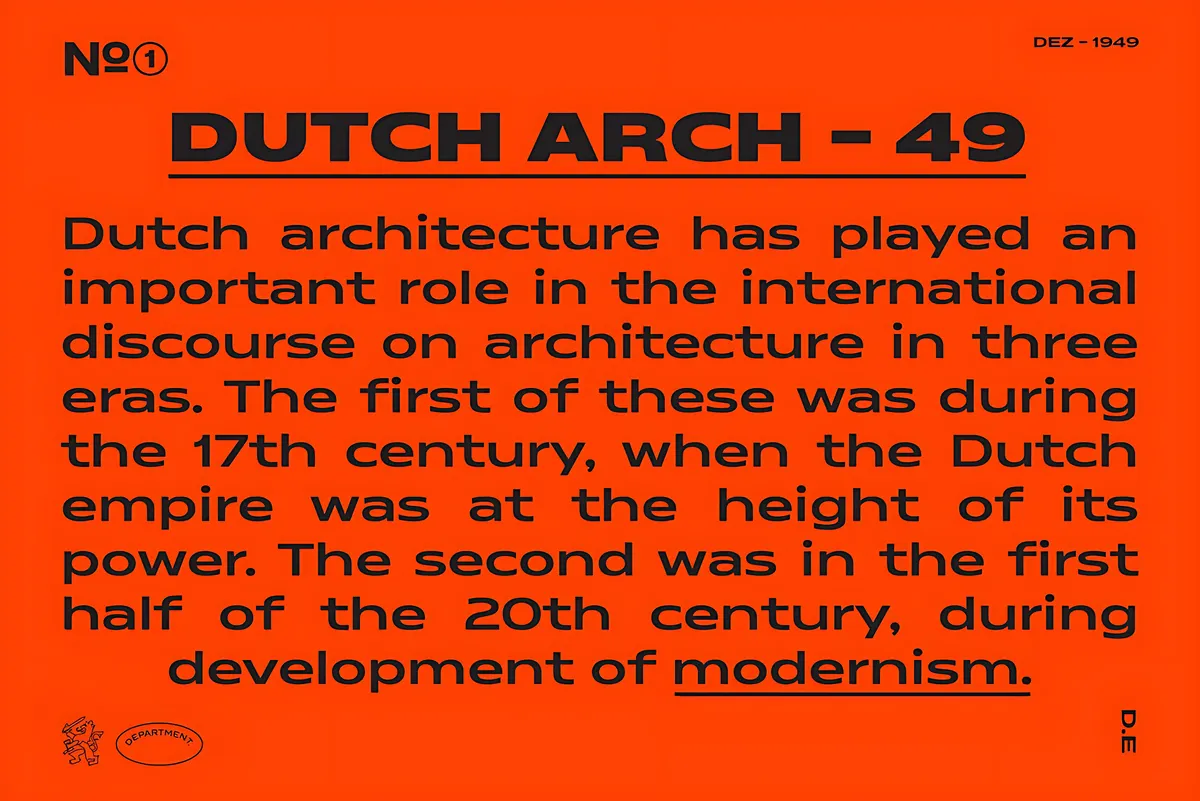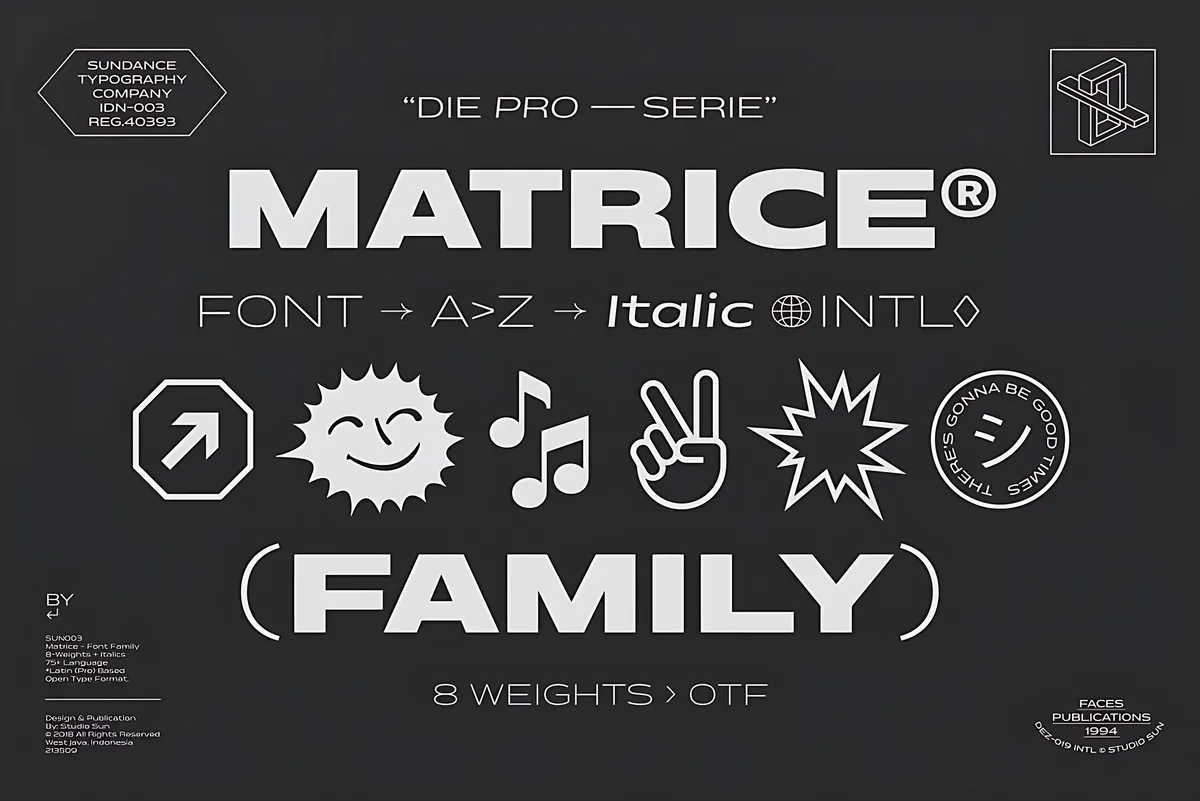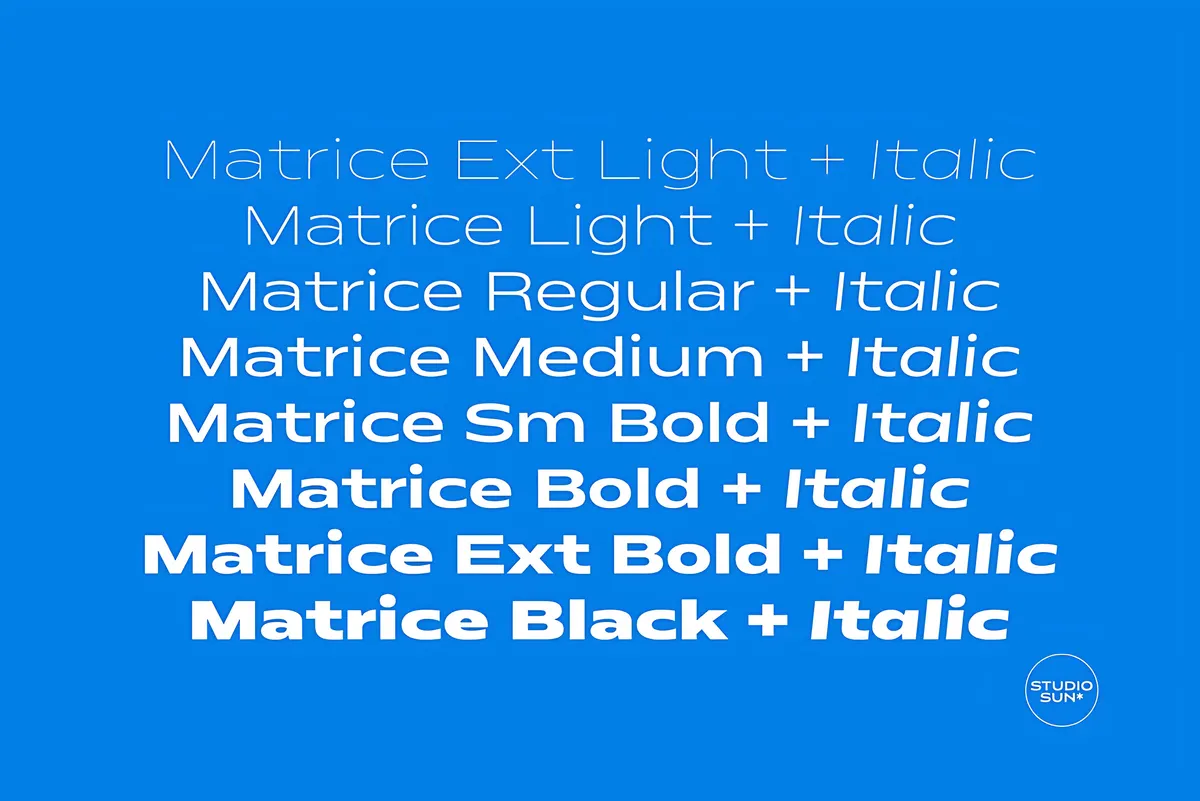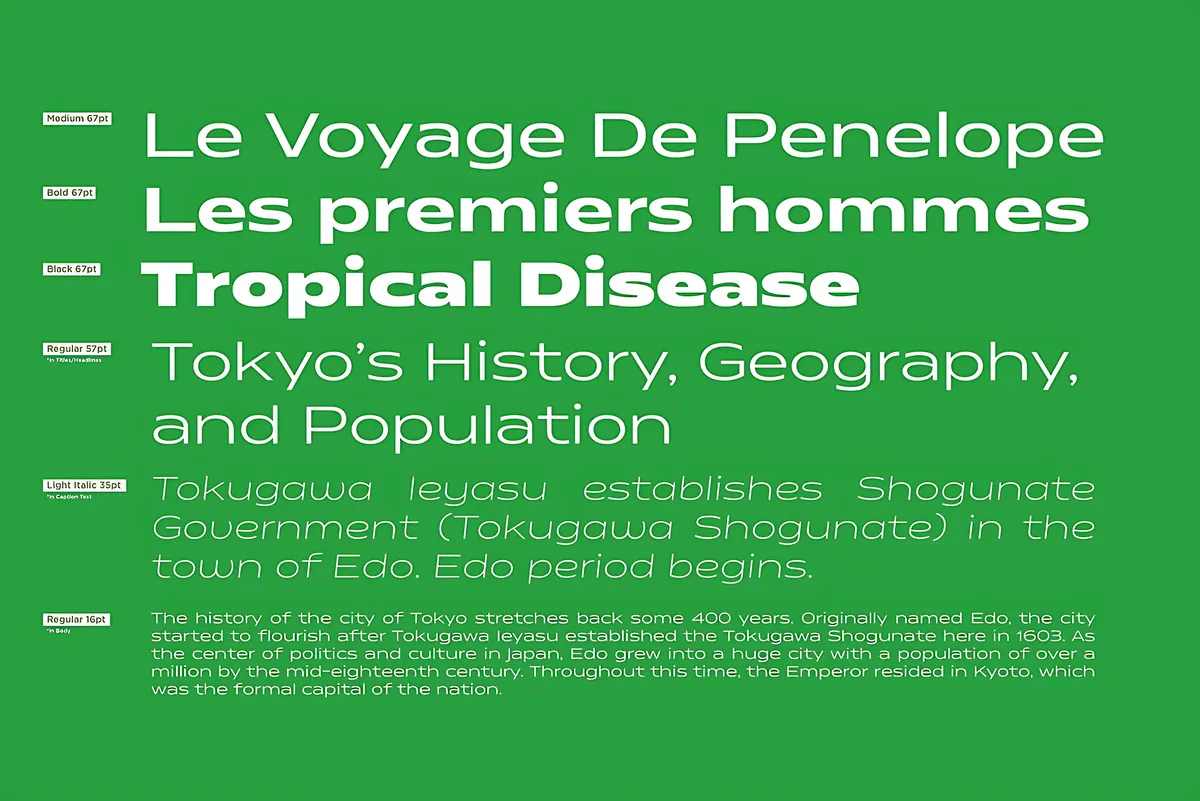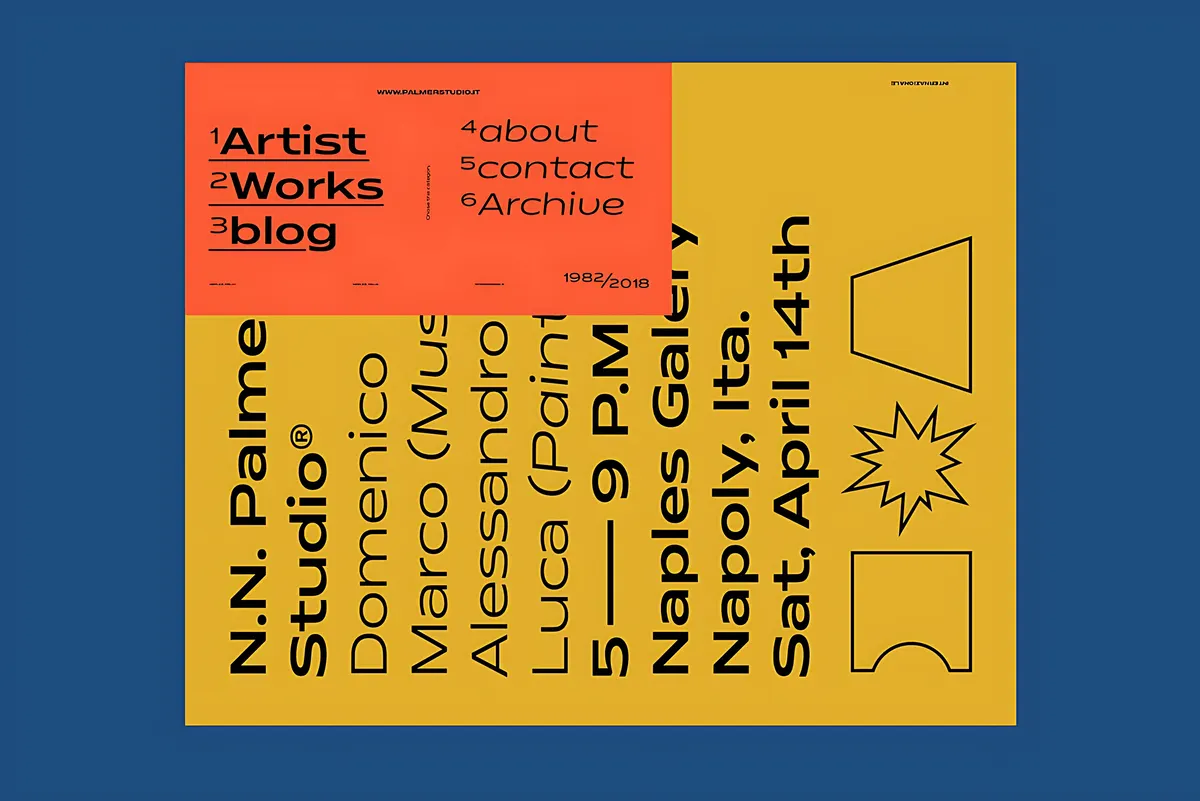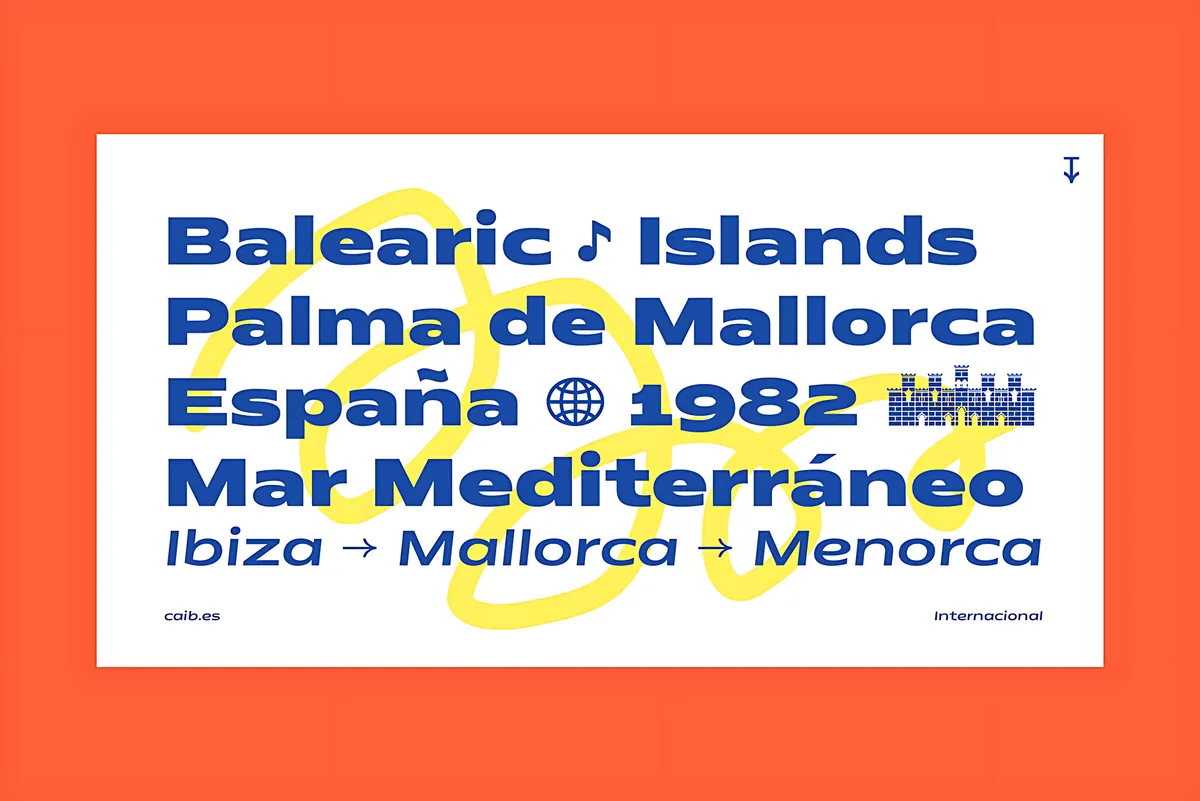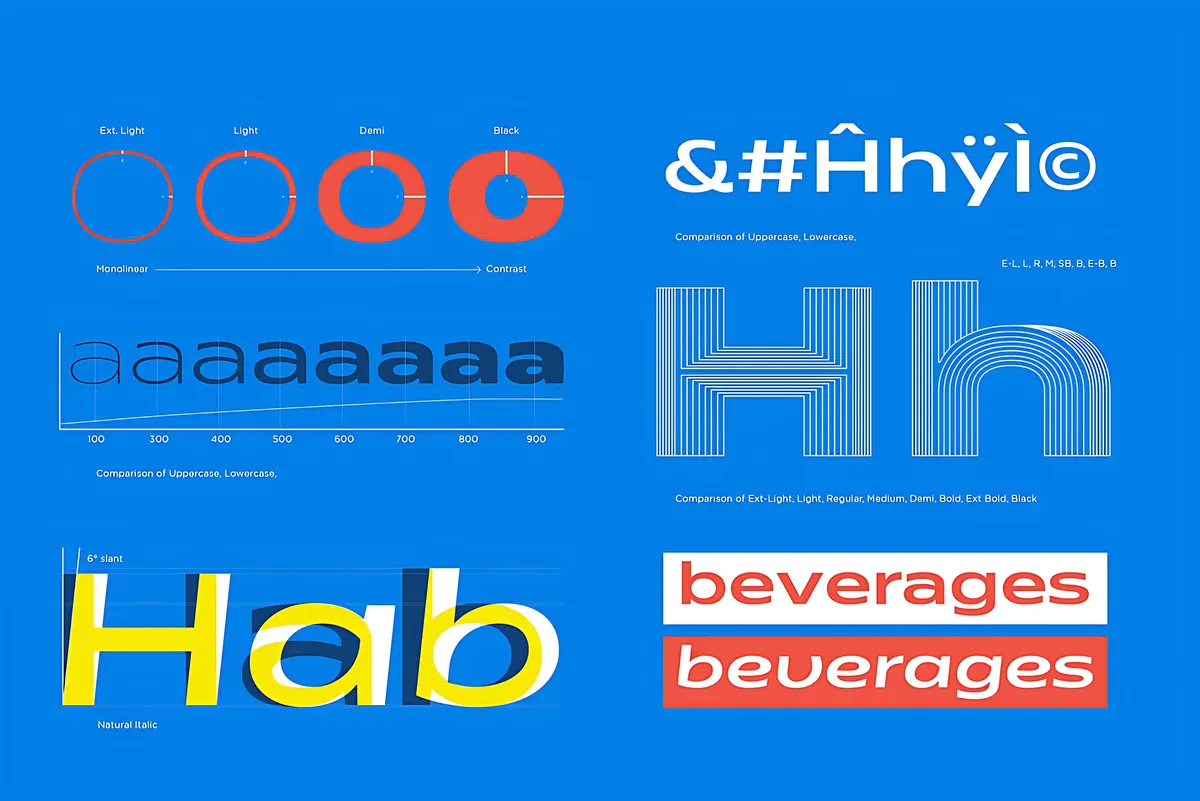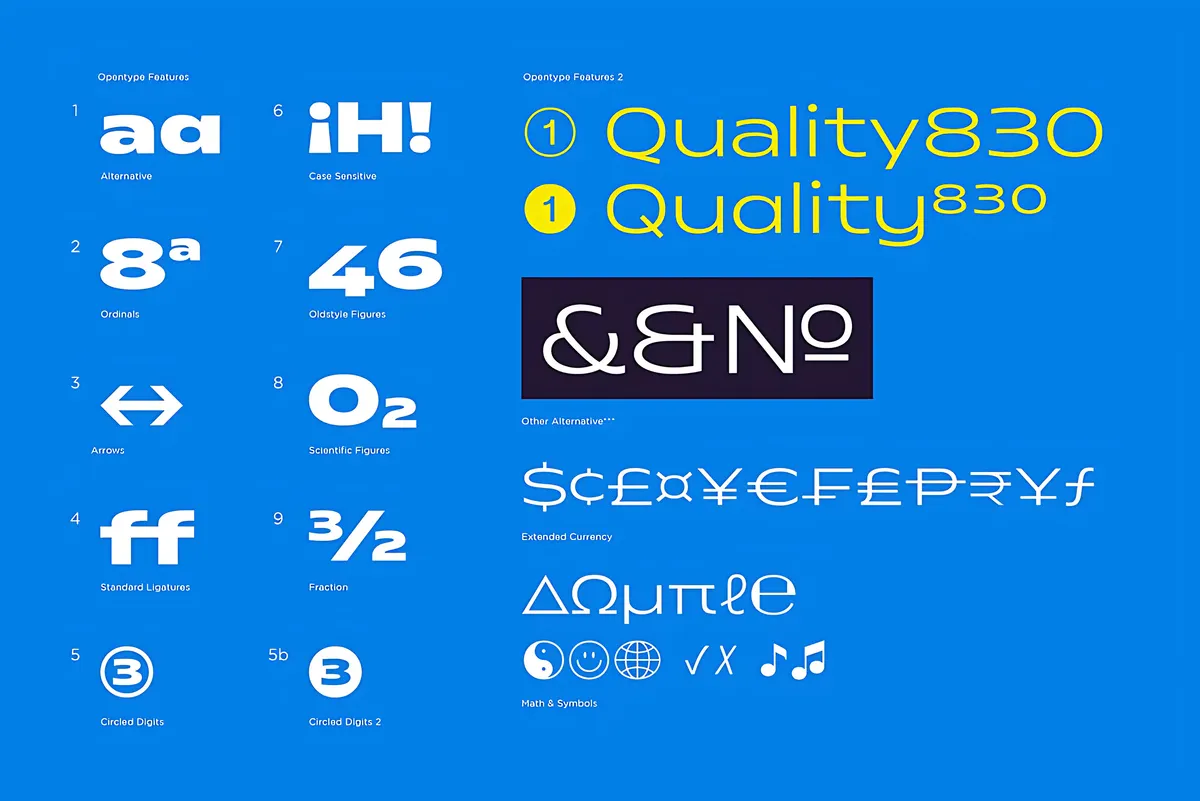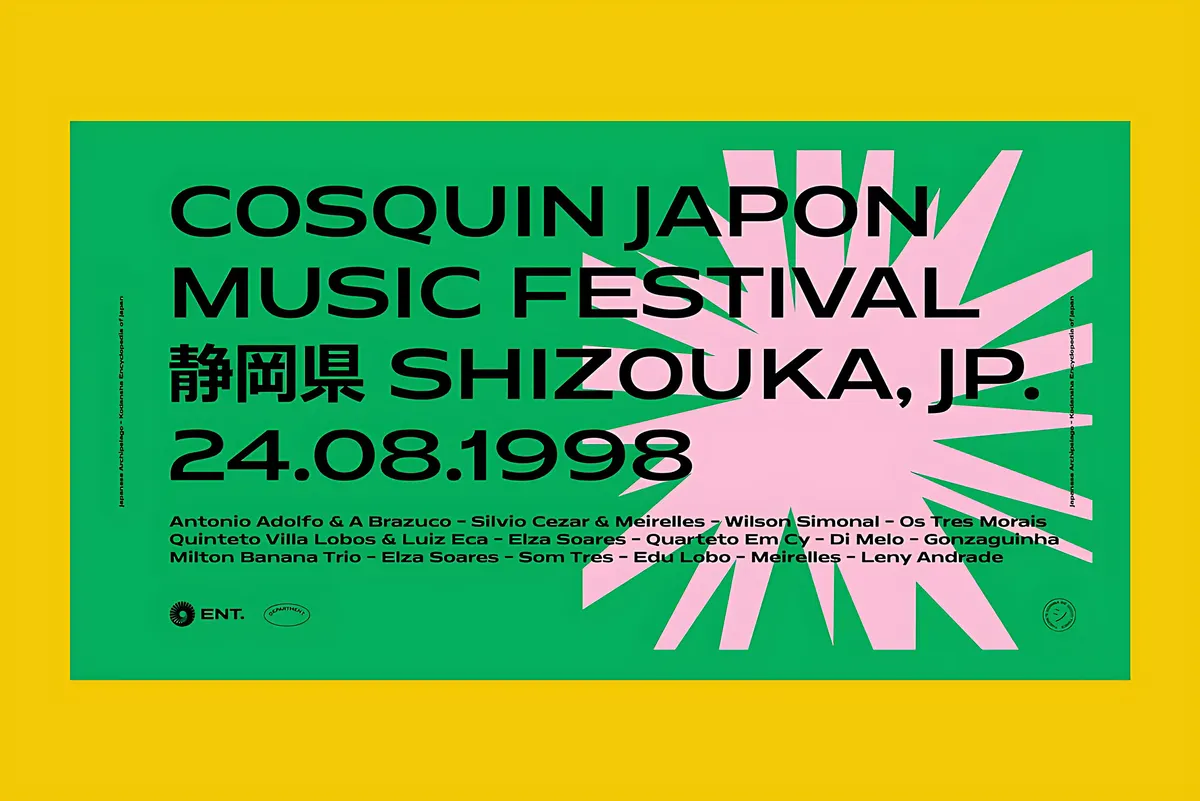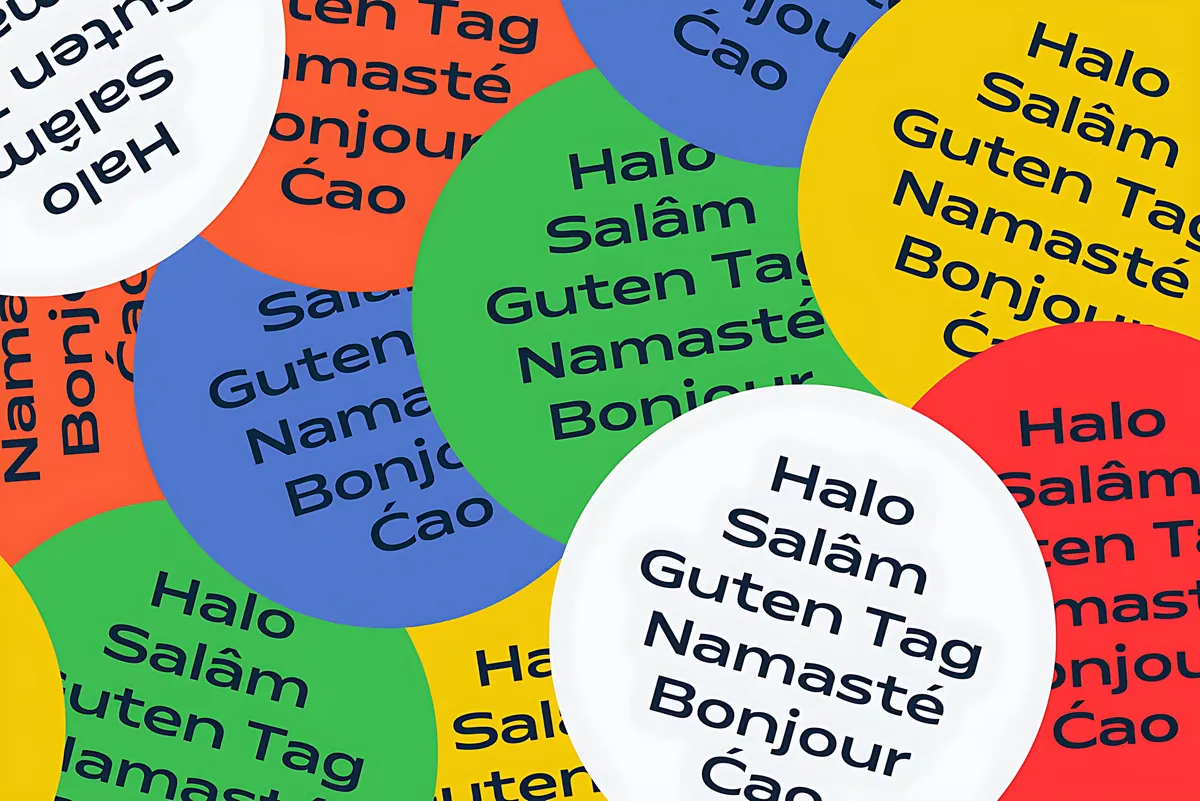
Matrice Font Family
Matrice is named after the typefounder's matrix, the brass mould struck by a punch and used to cast one letter at a time. The family is planned in that spirit: eight weights from Extra Light to Black, each with a drawn italic at a 6-degree slant, all on one wide geometric skeleton. The lightest cuts are monolinear, and stroke contrast grows with the weight, so Black holds a spine and a taper that Extra Light does not. Square-sided bowls, flat joints, and open apertures place this geometric sans serif font family in the systematic Swiss line.
The OpenType layer is stocked for real typesetting: alternates, oldstyle and scientific figures, ordinals, fractions, circled digits in two versions, case-sensitive forms, arrows, extended currency, and math and Greek characters. Cahya Sofyan drew the weights as one system, which is what an identity needs when the same typeface runs across signage, editorial pages, and a website.
Usage: branding and identity systems, editorial layouts, poster design, Web and UI, packaging, and signage.